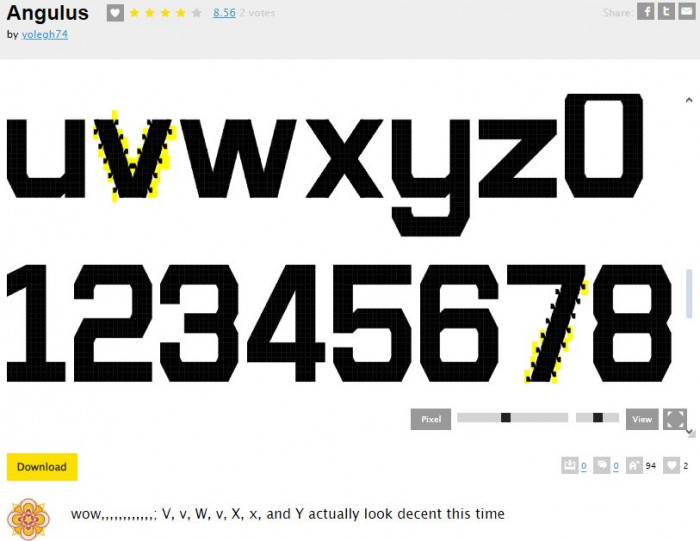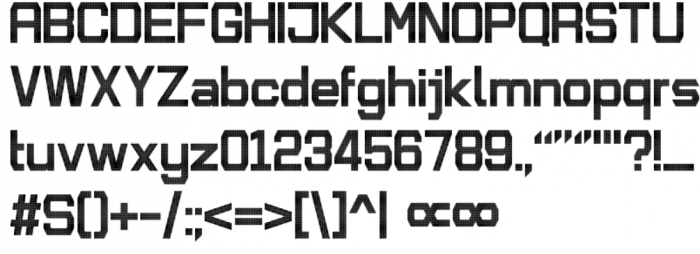
• wow,,,,,,,,,,,,; V, v, W, v, X, x, and Y actually look decent this time
Vhat are those hairs on V and 7 ?
Probably a brick swap or something
WHY DOES THIS KEEP HAPPENING
fixed